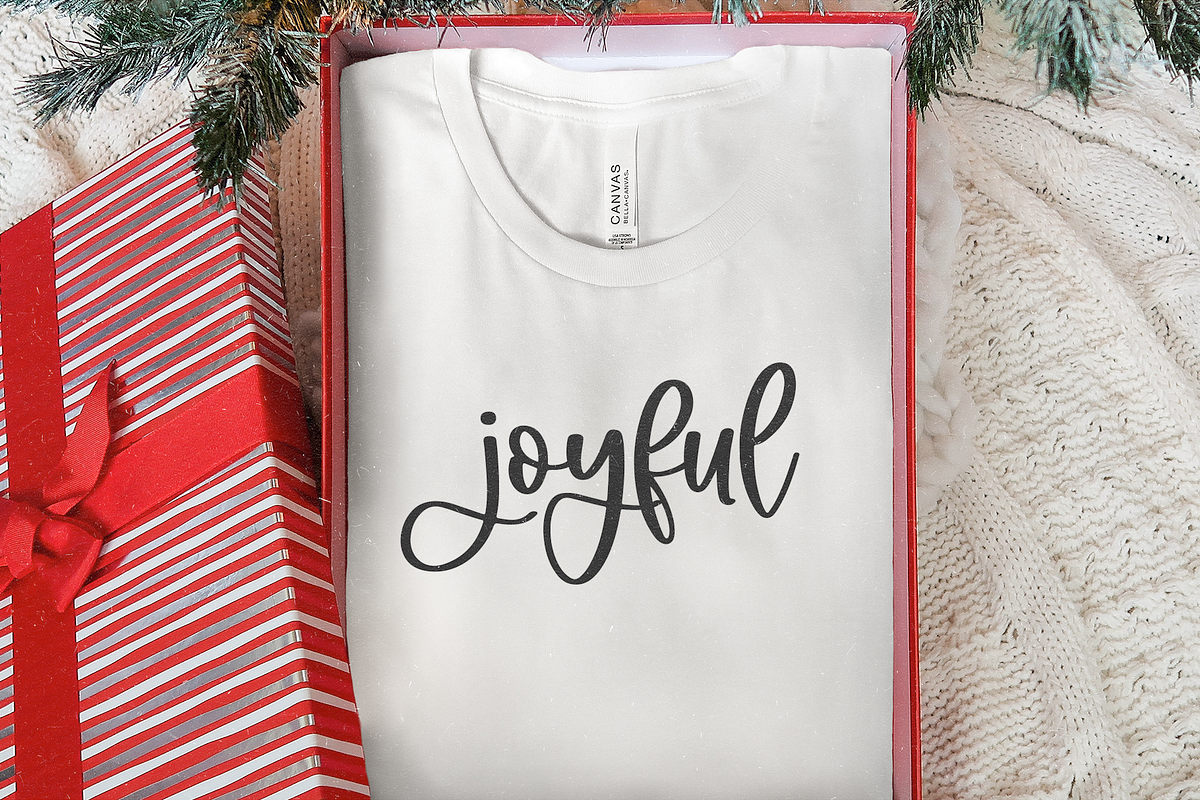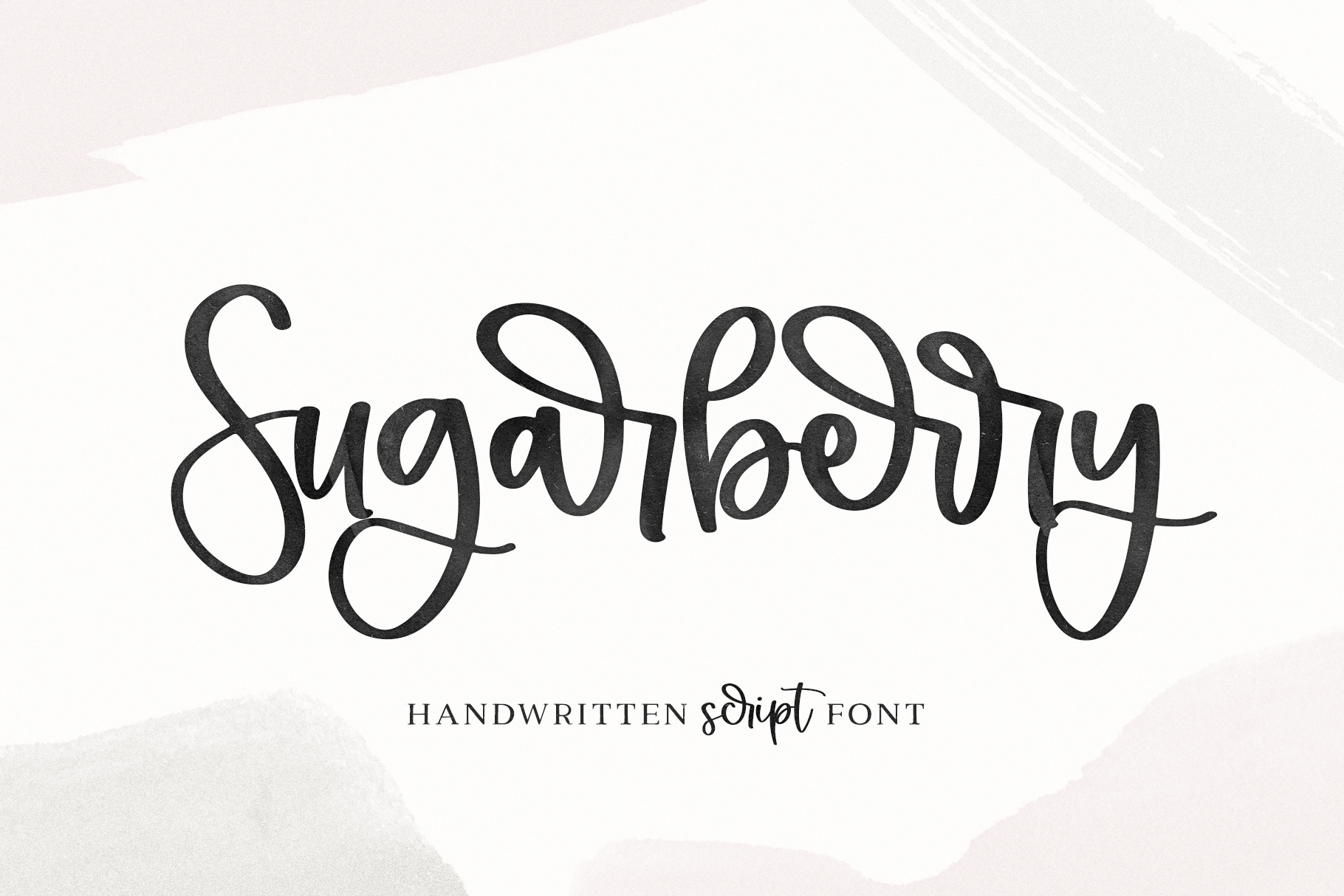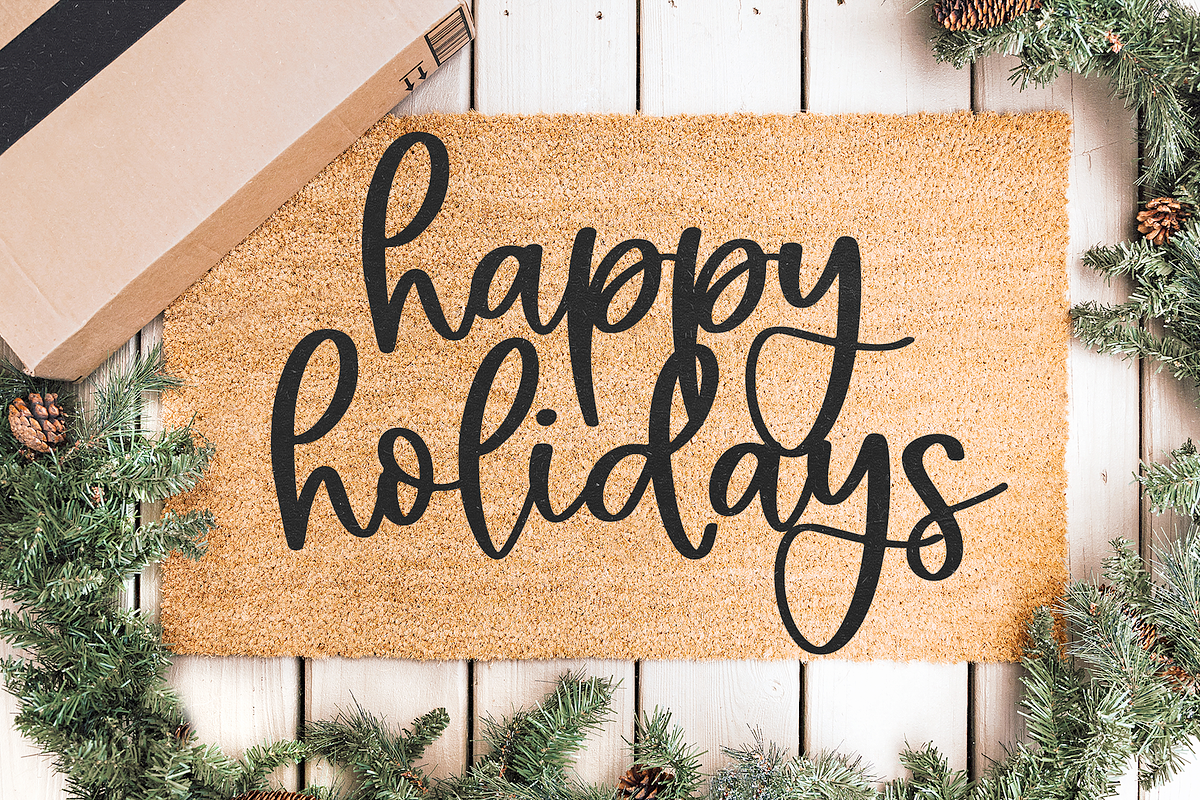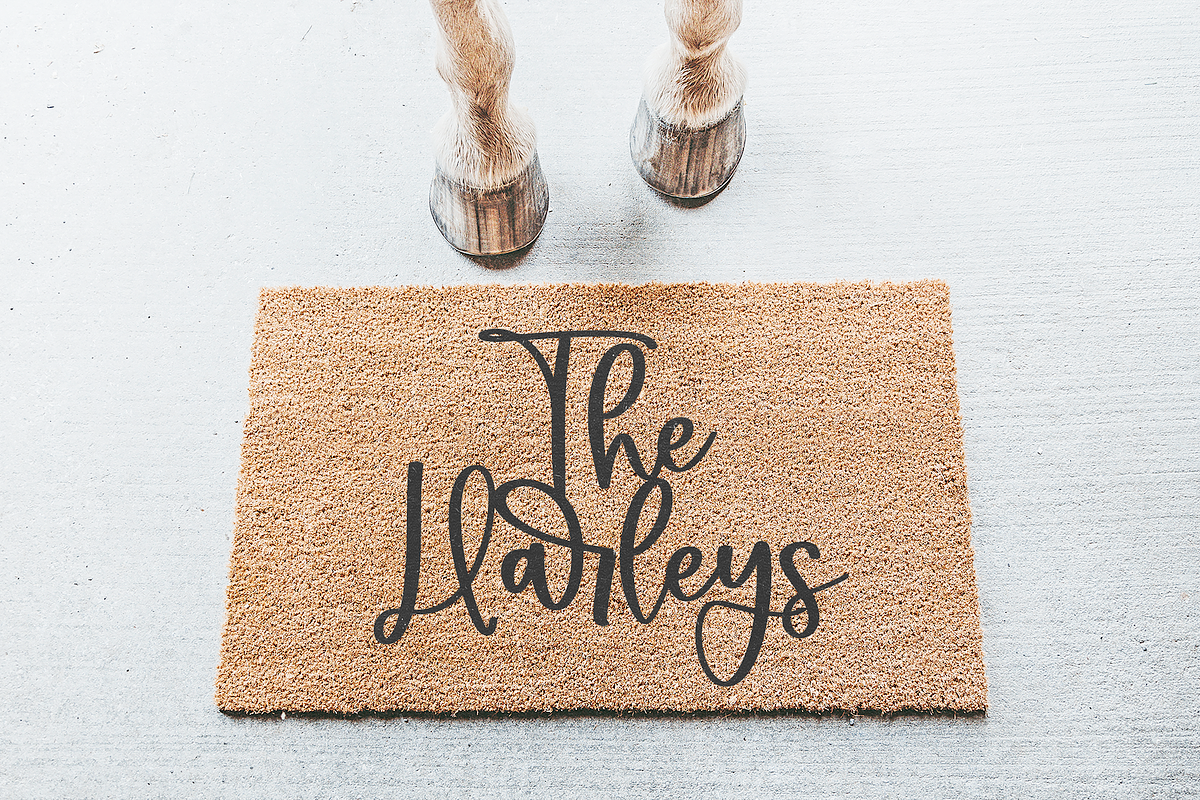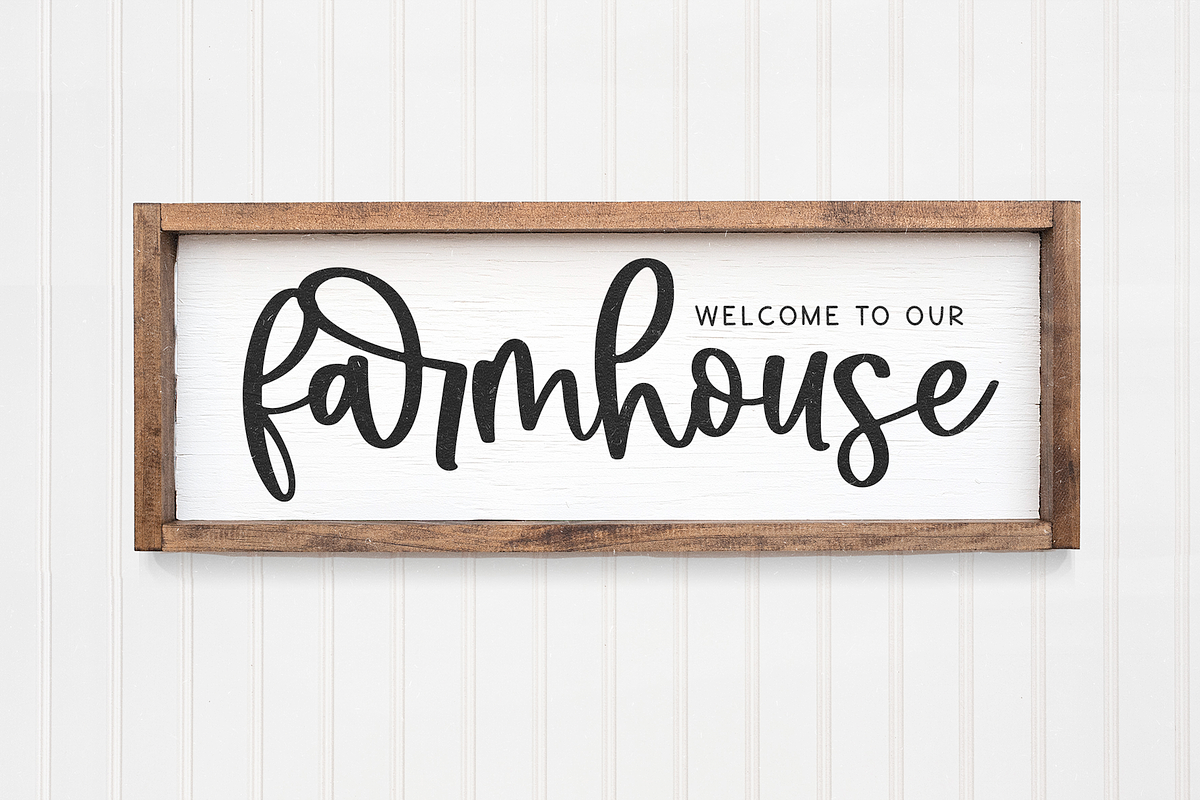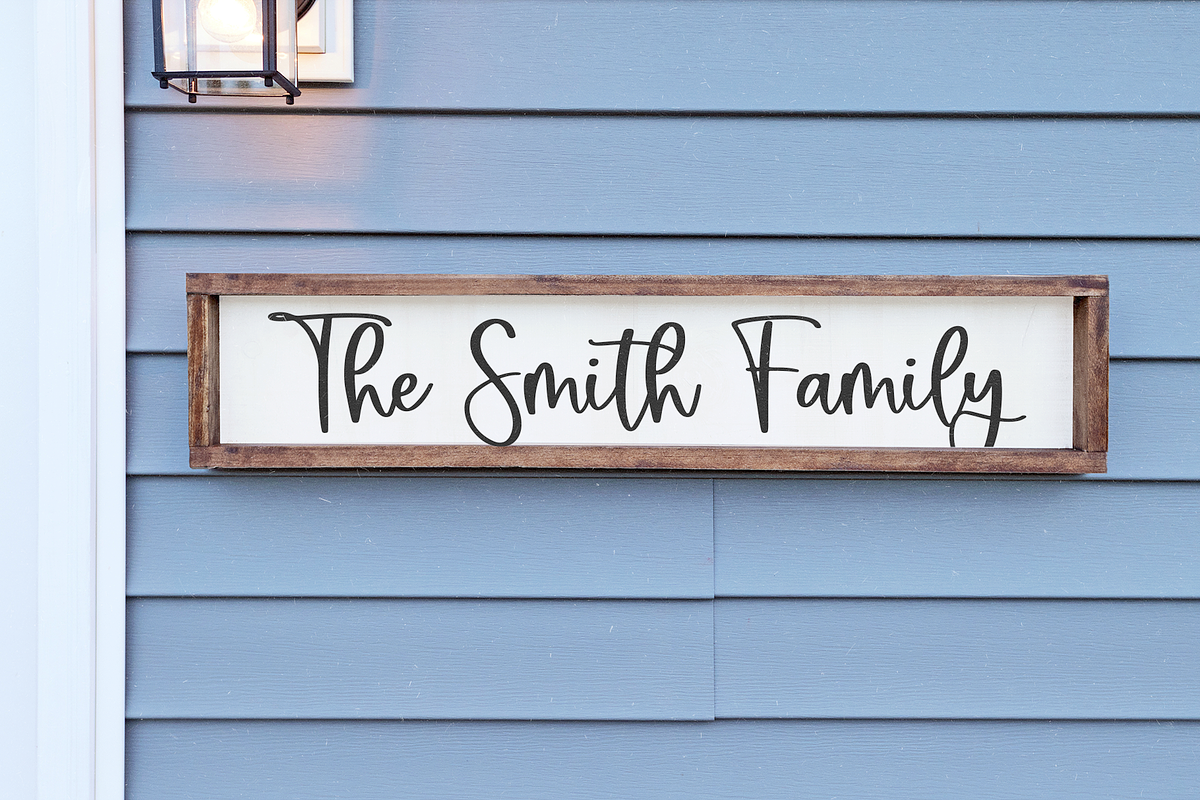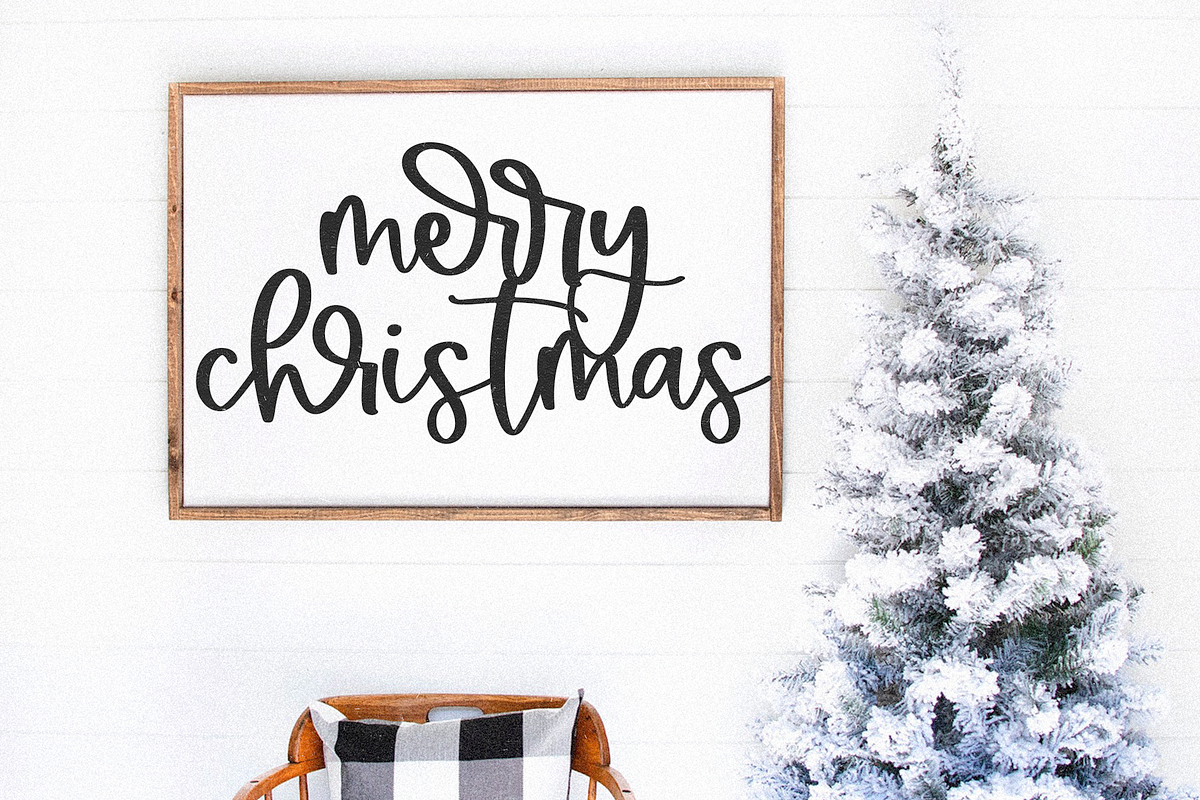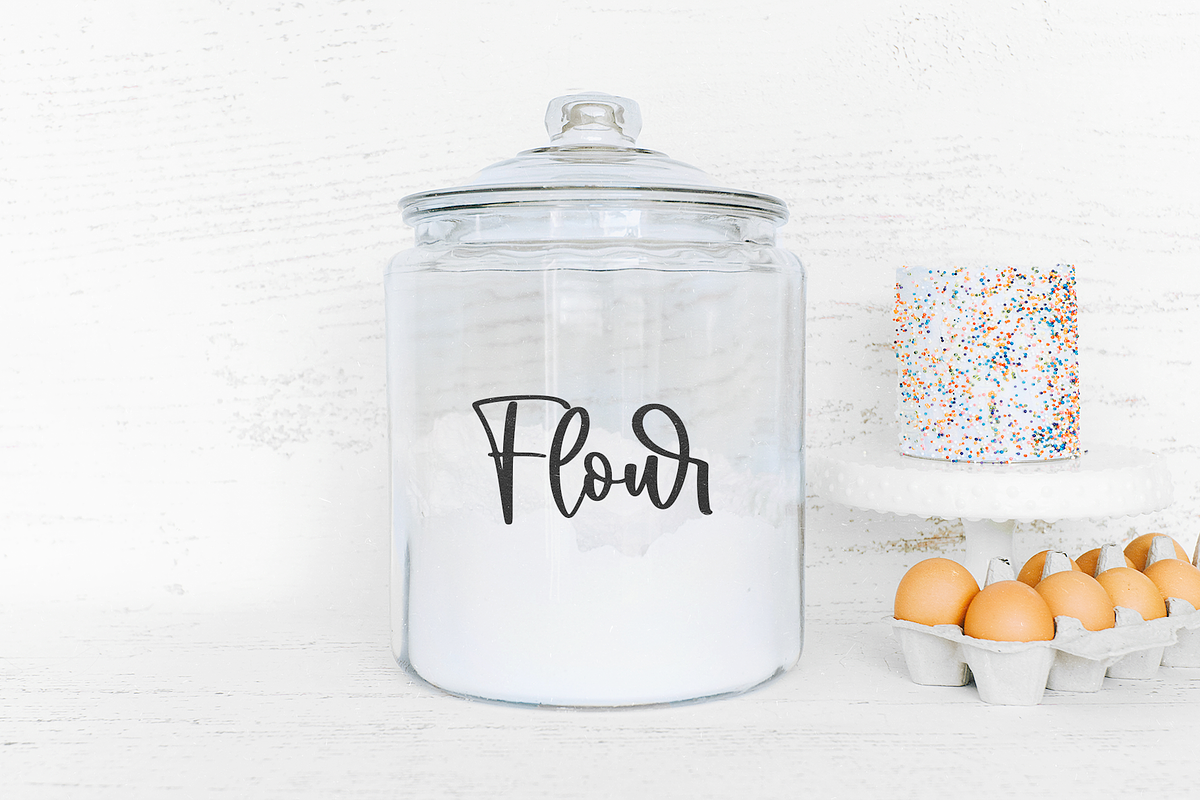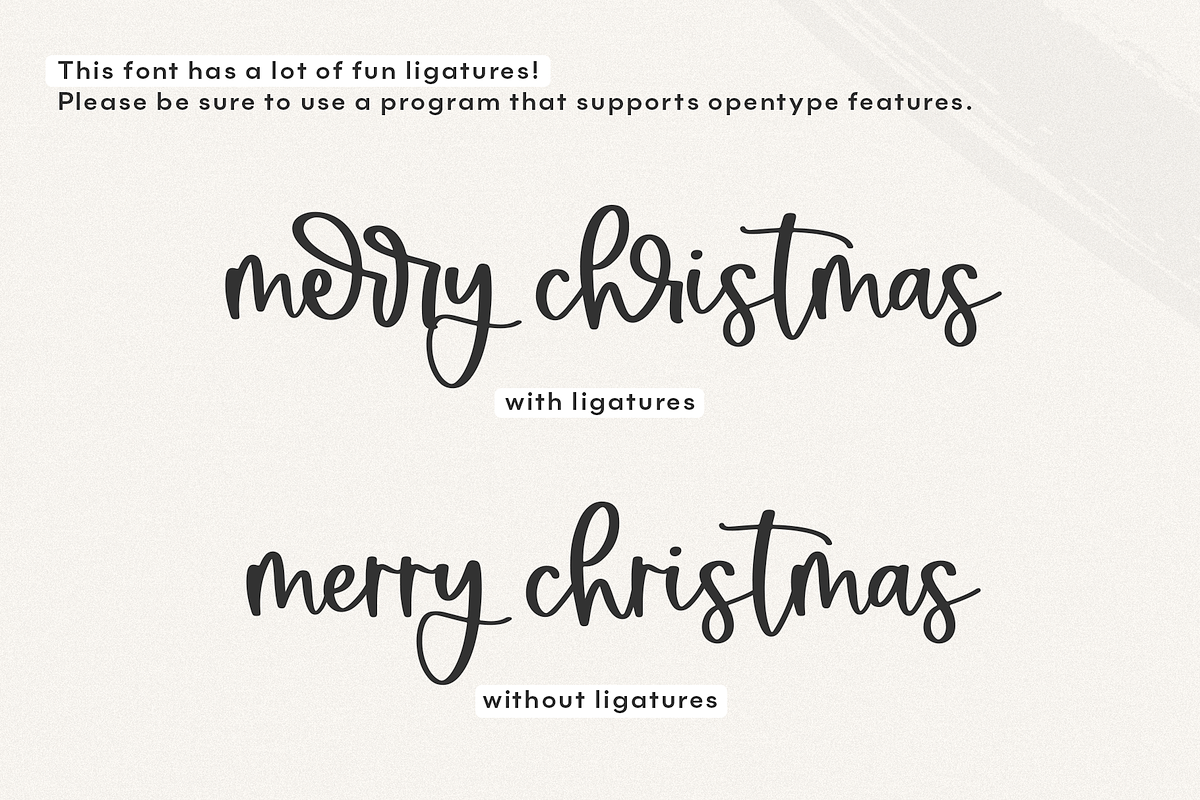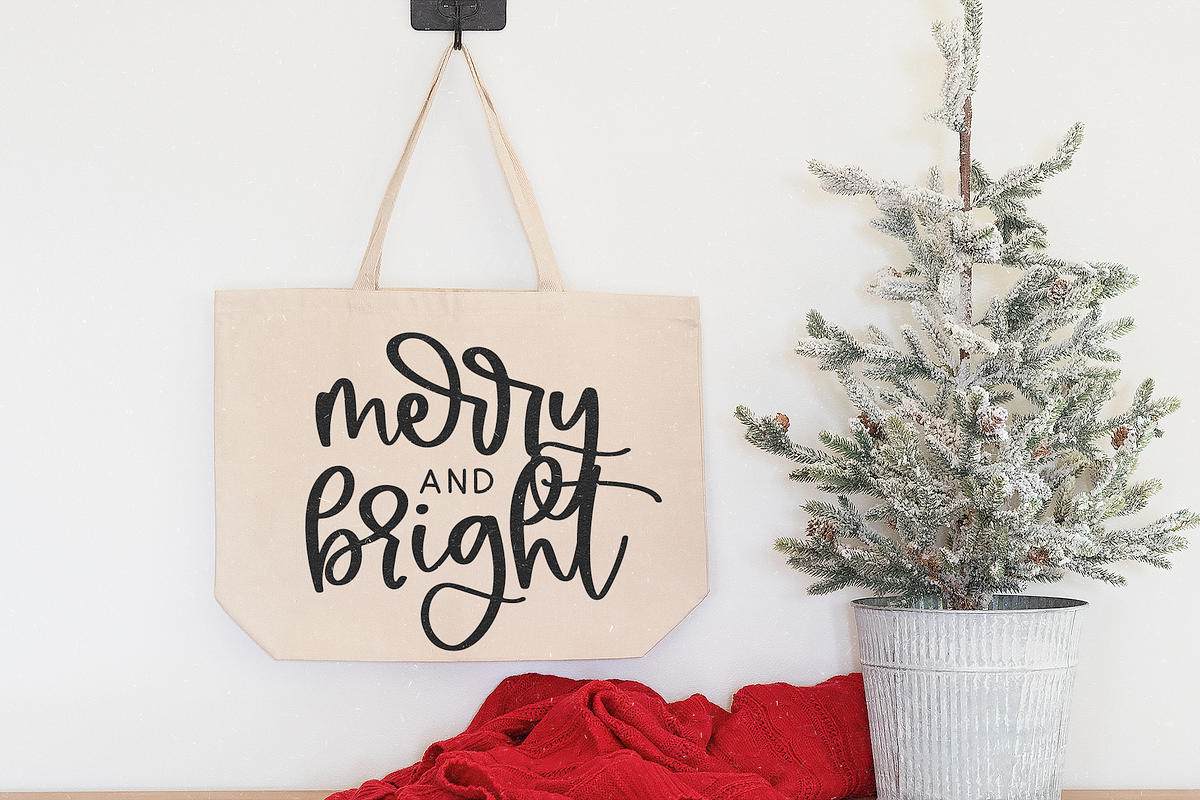
Sugarberry | Handwritten Script Font
Sugarberry is a handwritten script font - with a fun and modern look!
The exaggerated lowercase letter r's are embedded into the font file as ligatures. Please make sure you are using a program that supports opentype fonts. You can also access these letter pairs through your font book(Mac) or character map(windows) in most programs. There is an instruction guide included but please ask if you need help before purchasing.
This font is perfect for svg designs, shirts, crafts, farmhouse designs, procreate, cricut projects, branding, blogs, logos, invitations and more!